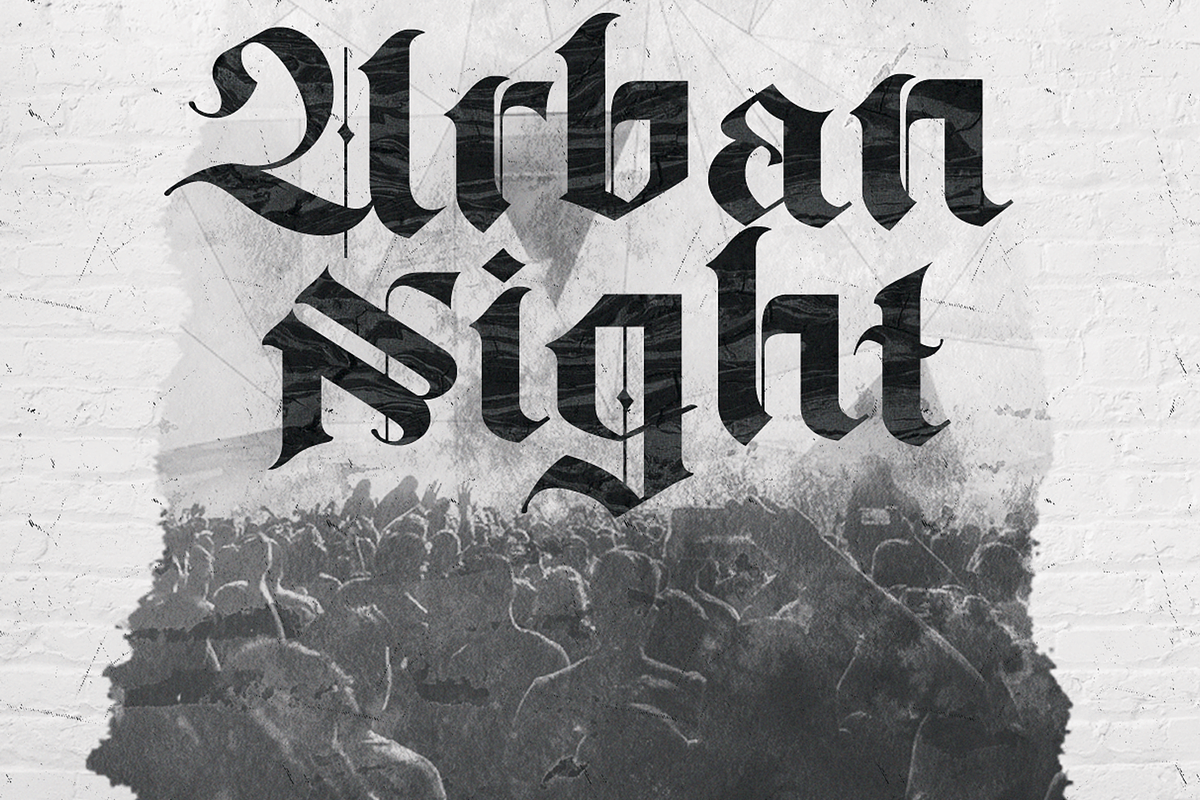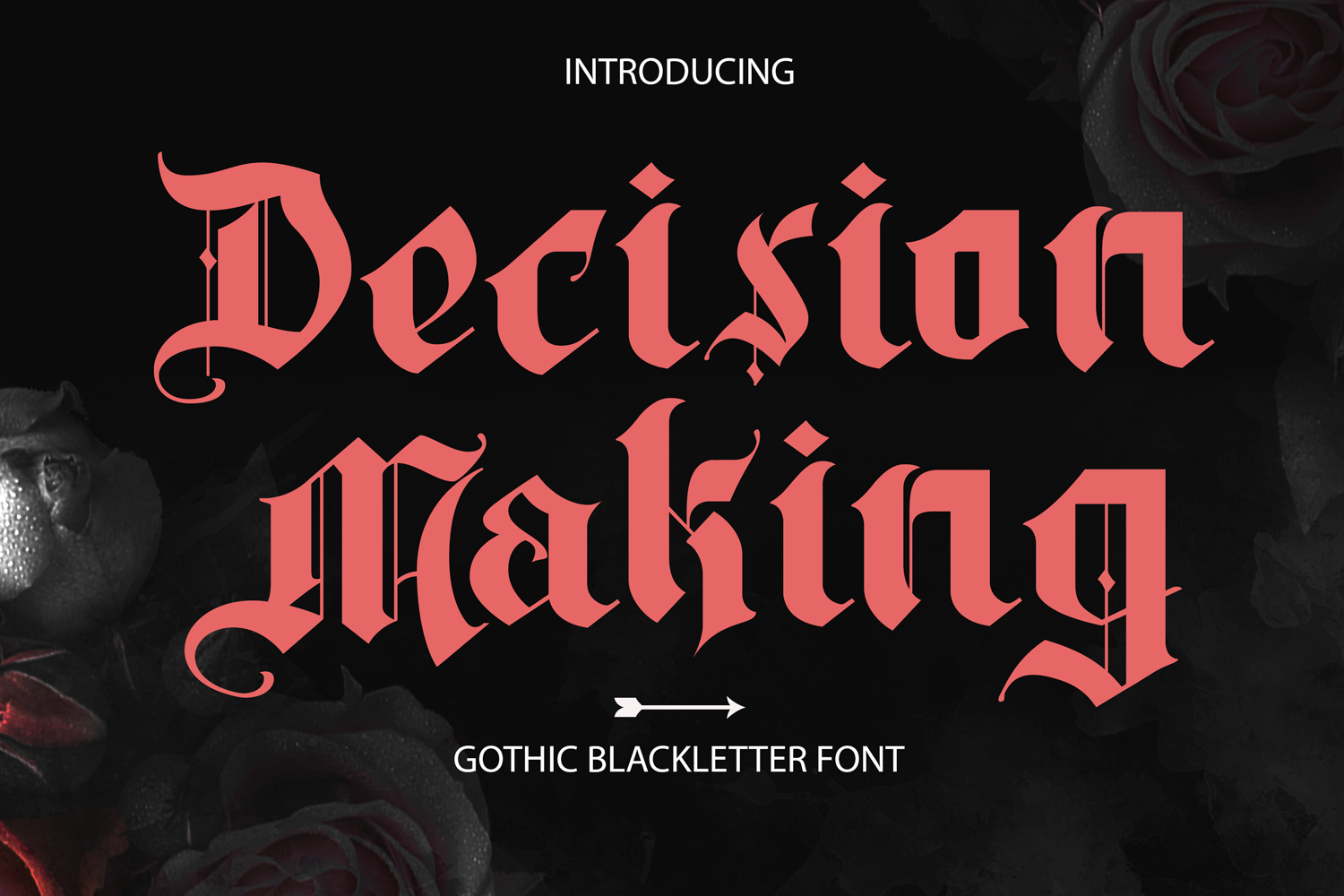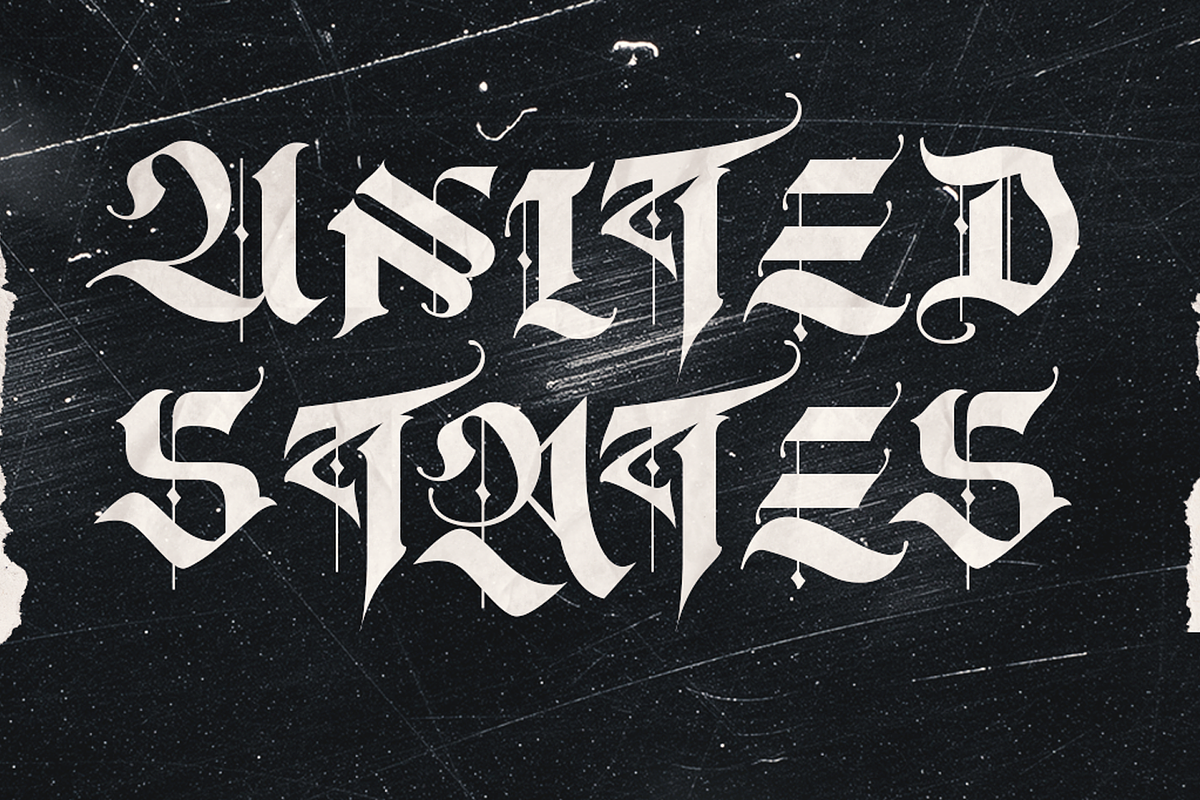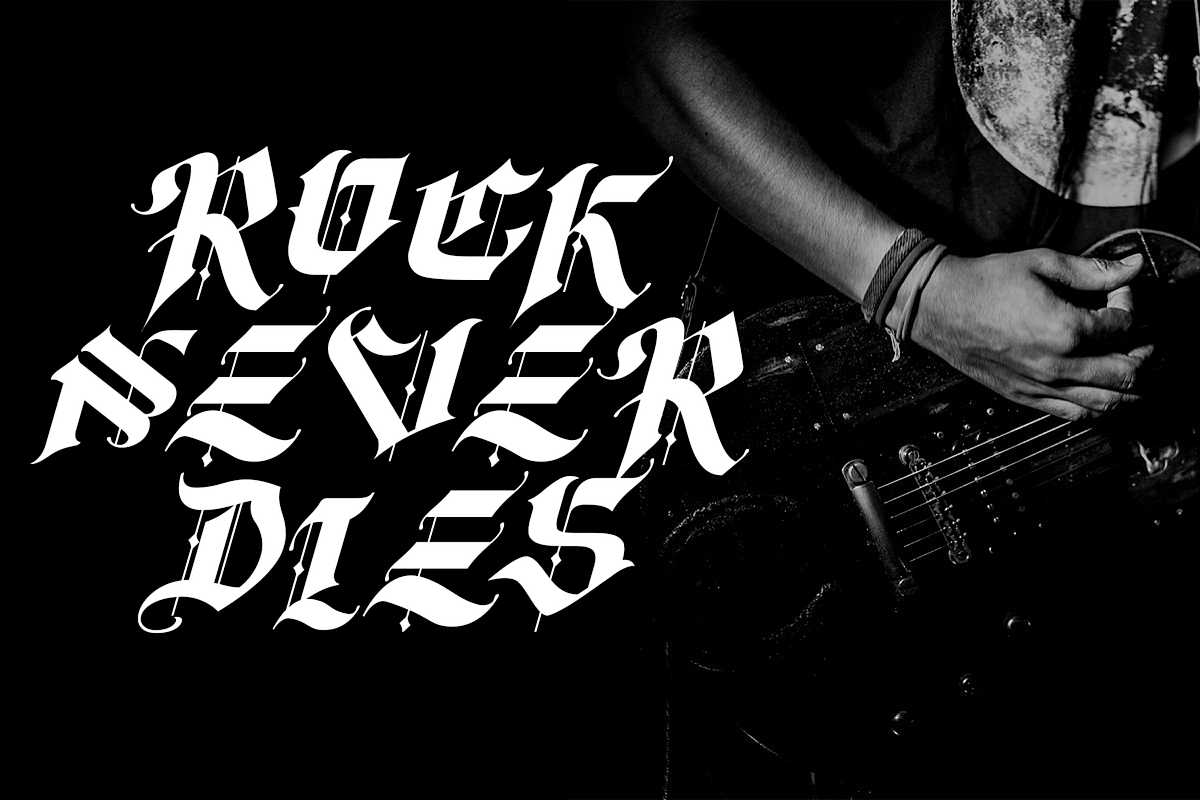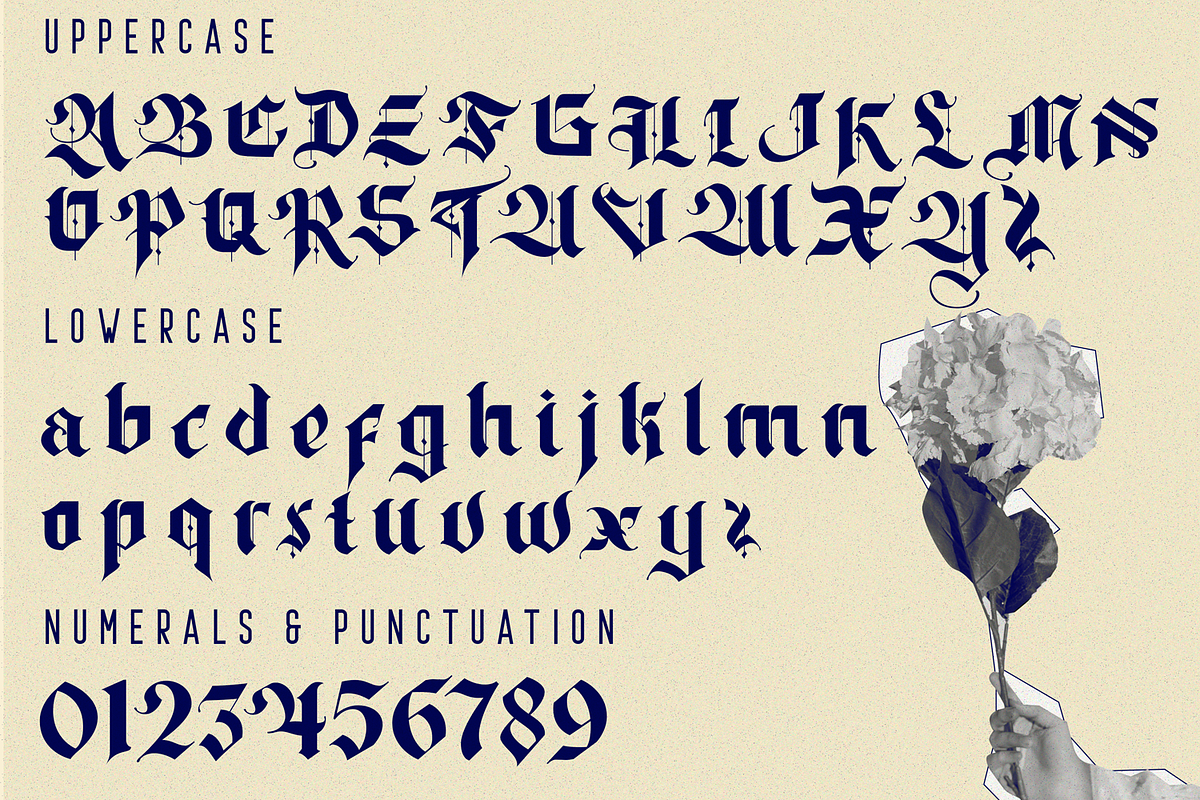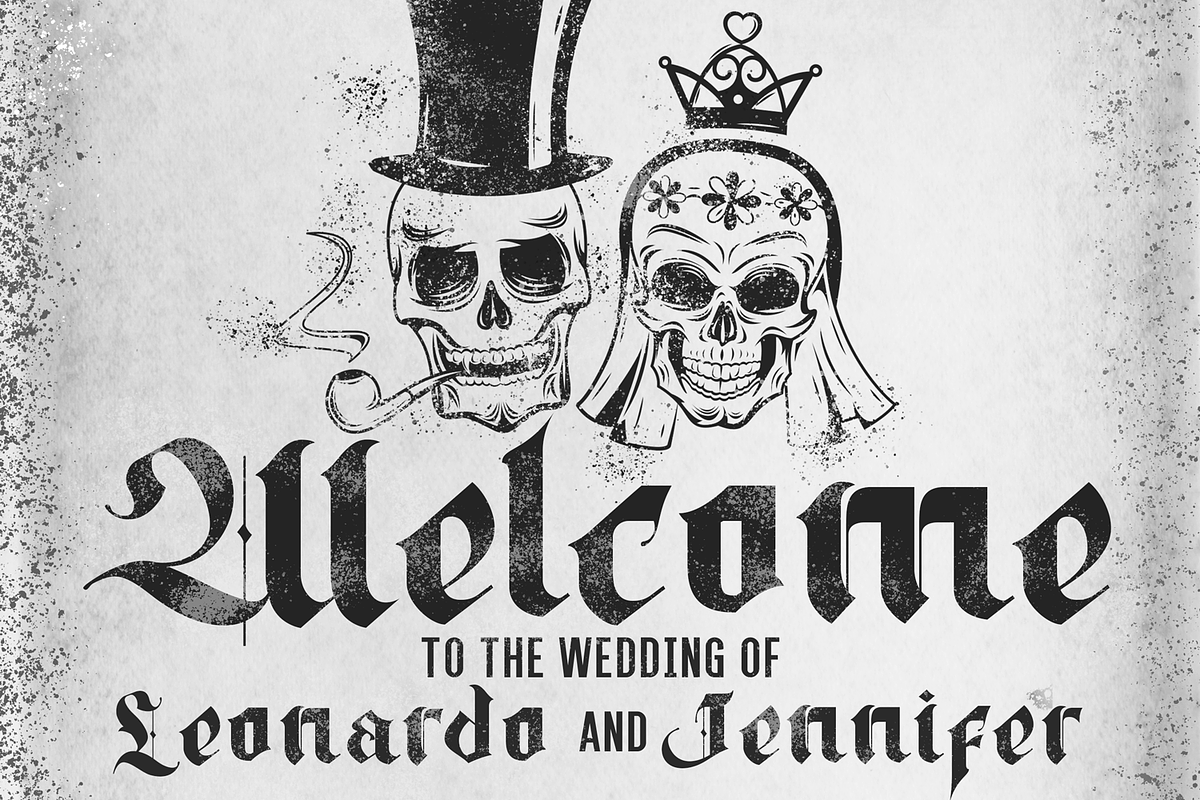
Decision Making Font
Decision Making Font is an incredibly authentic and daring blackletter font. This font is made with references to various letters that I combine and design with my style. Add this font to your favorite creative ideas and notice how it makes them stand out! It's great and usefull for product logo, poster title, headline, packaging, badge, wedding card logo, clothing brand logo, Vintage design and much more.